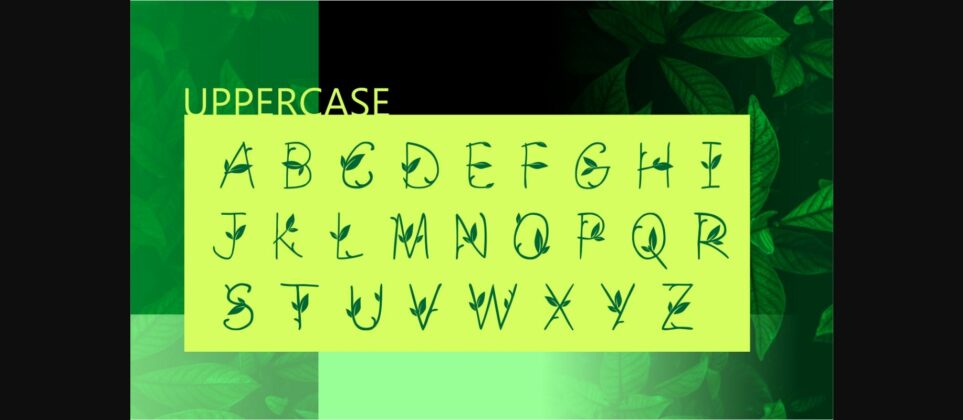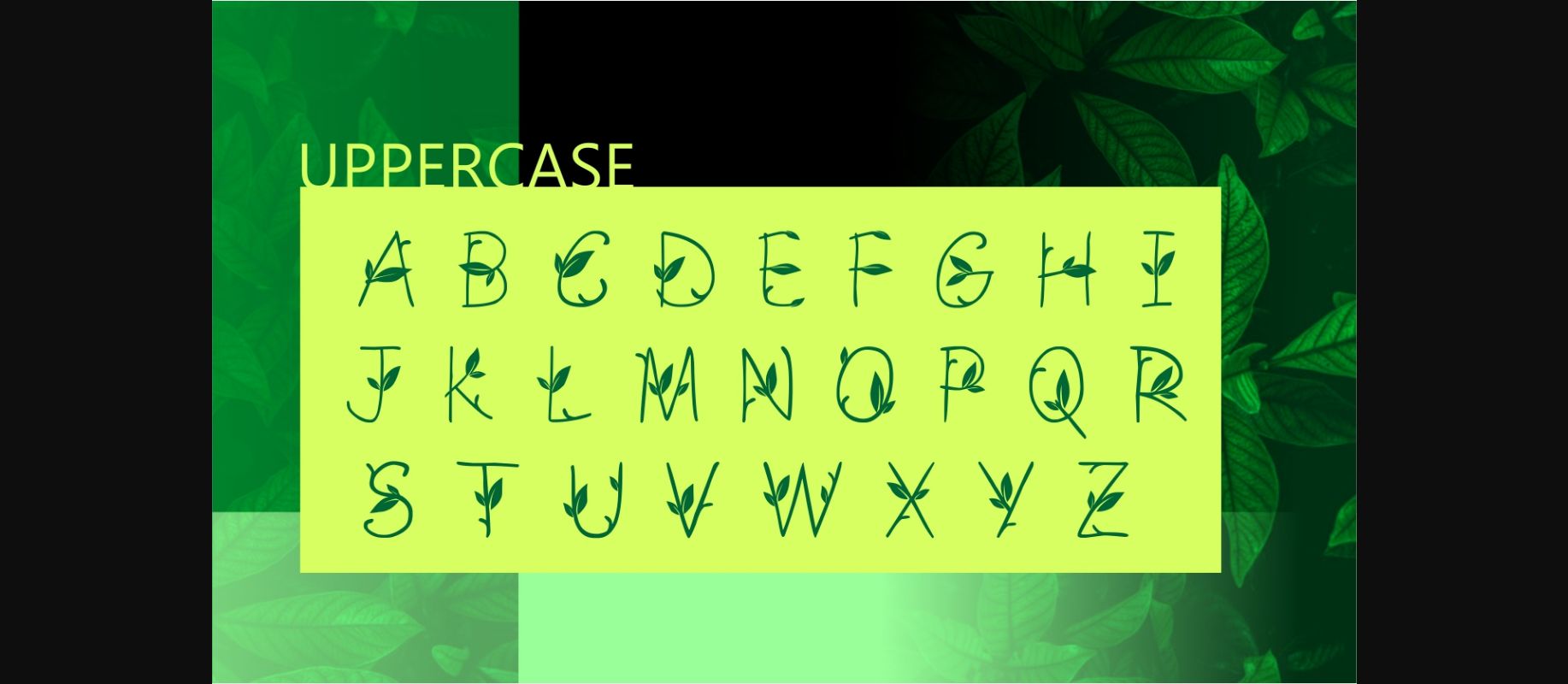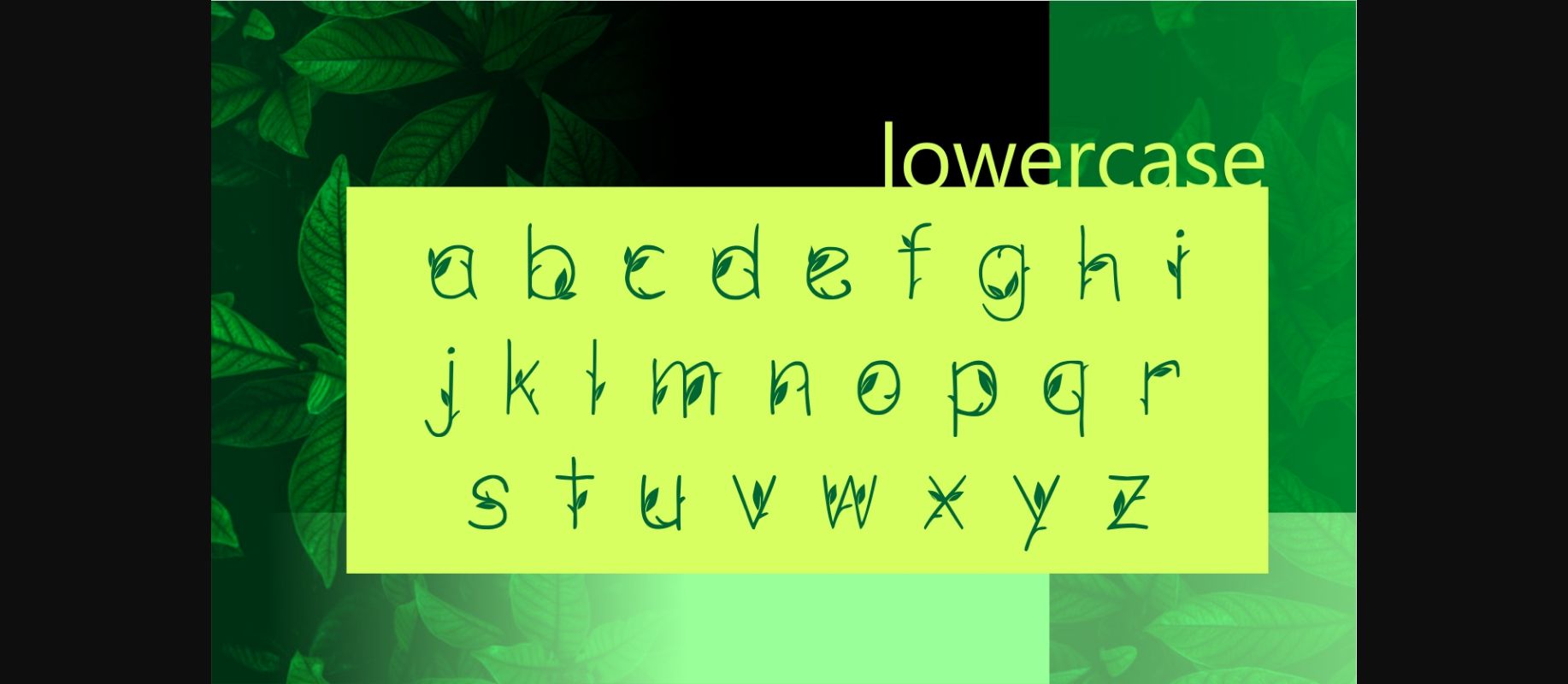
About Green Nature Font
Green Nature is a classic decorative font with a botanical twist. Fall in love with its discreet charm, and turn any design idea into a stand out!